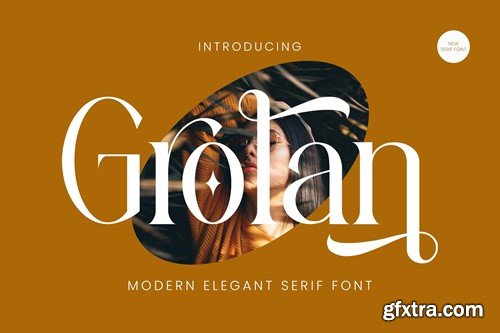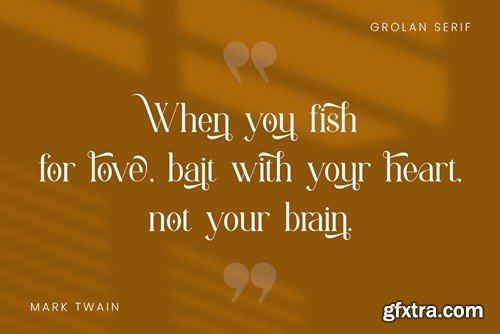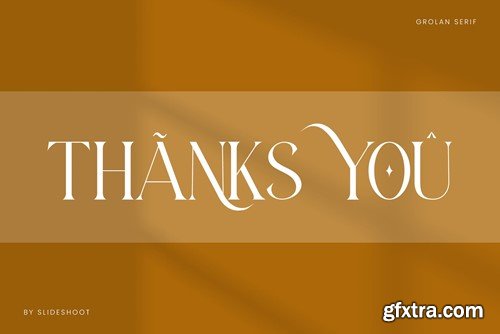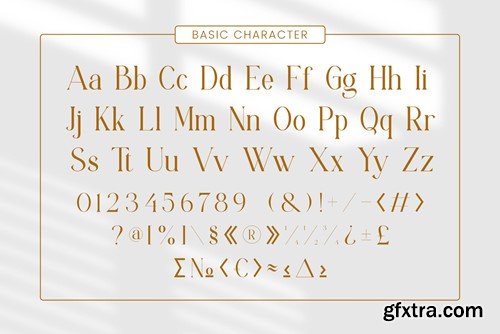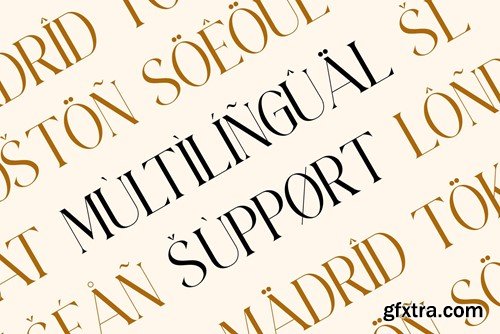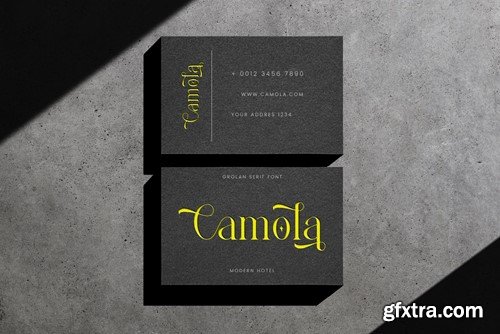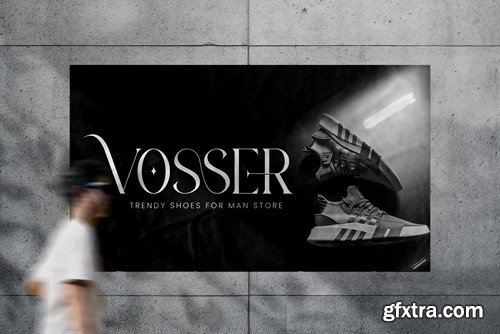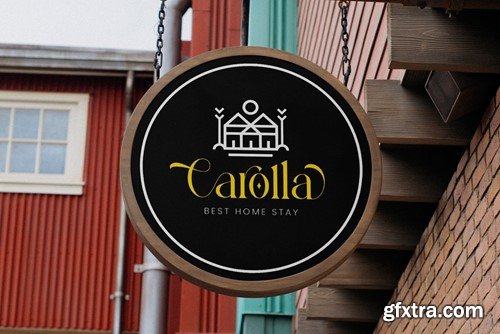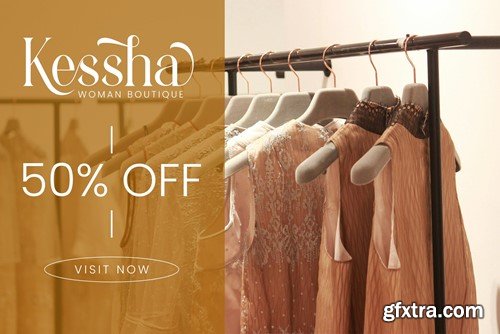
Grolan Serif Font
Grolan Serif is a balanced, smooth, elegant and stylish serif font. He has a beautiful character. It fits perfectly with invitation card designs, company logos, movie titles, movie names, business cards, book titles, brand names and various other designs. Grolan Serif is a subtle serif font that exudes sophistication and elegance. Its stylish alternations and ligatures make this font the perfect partner for any project. FEATURE : Hope you like it. Thank you.